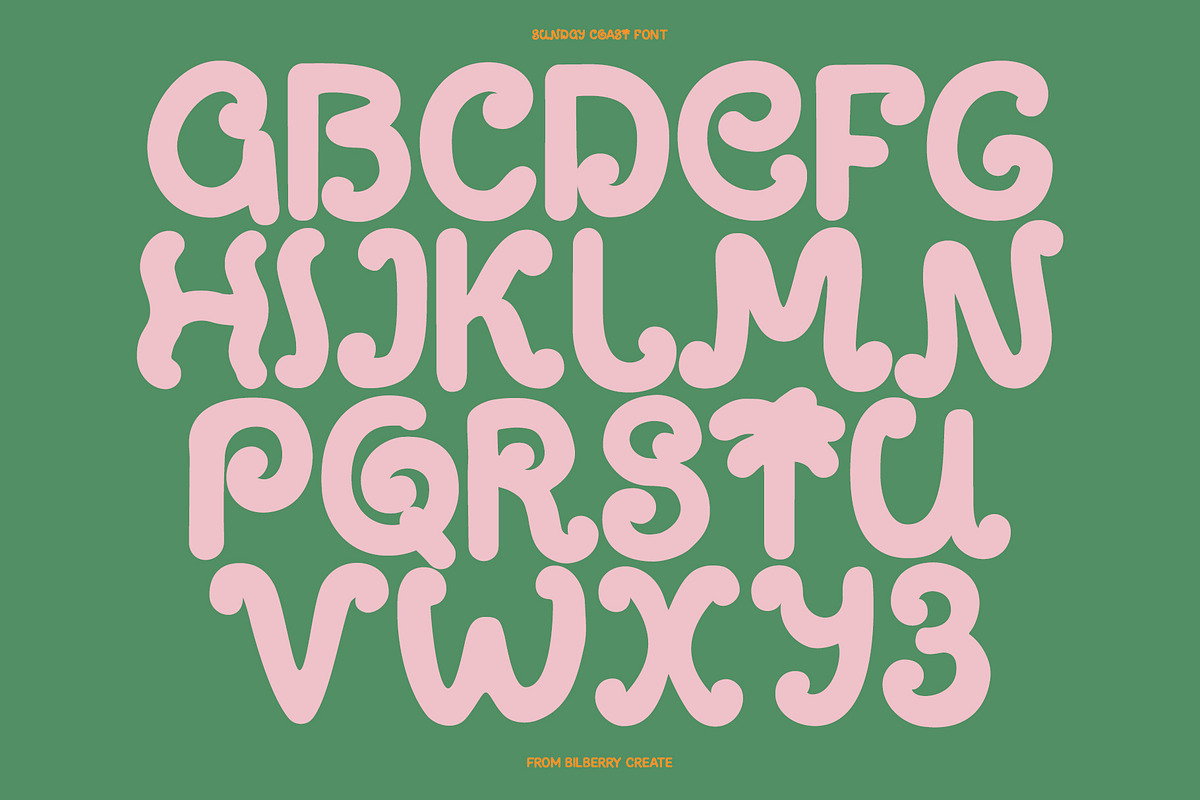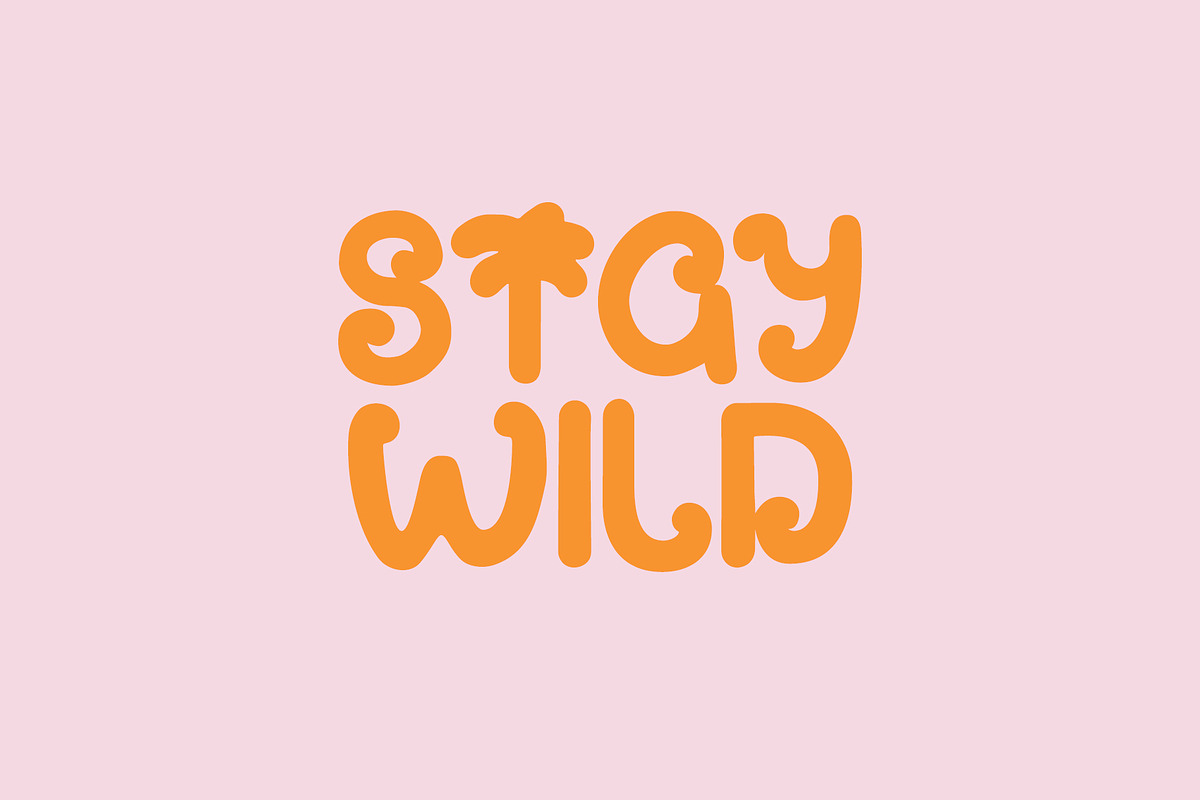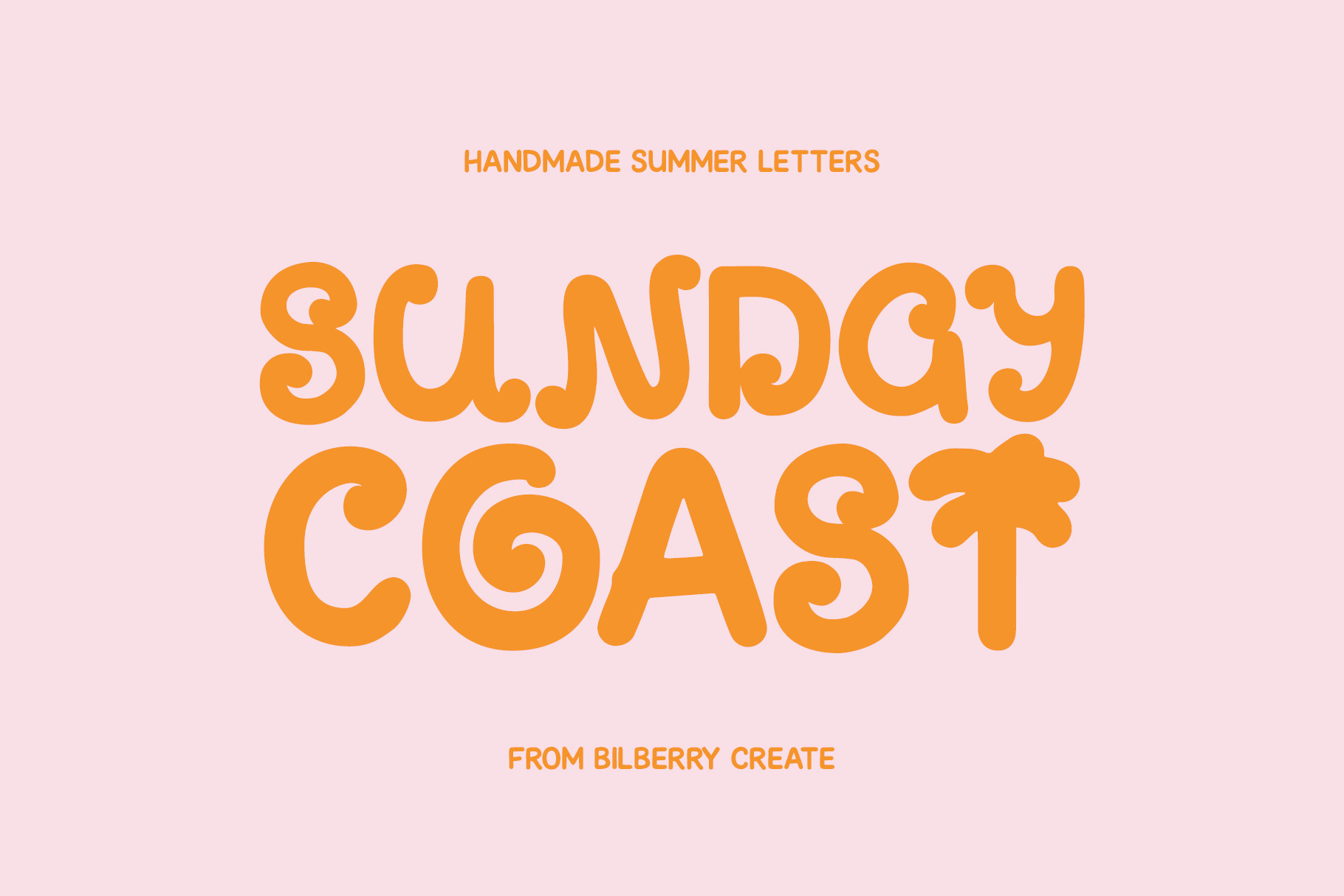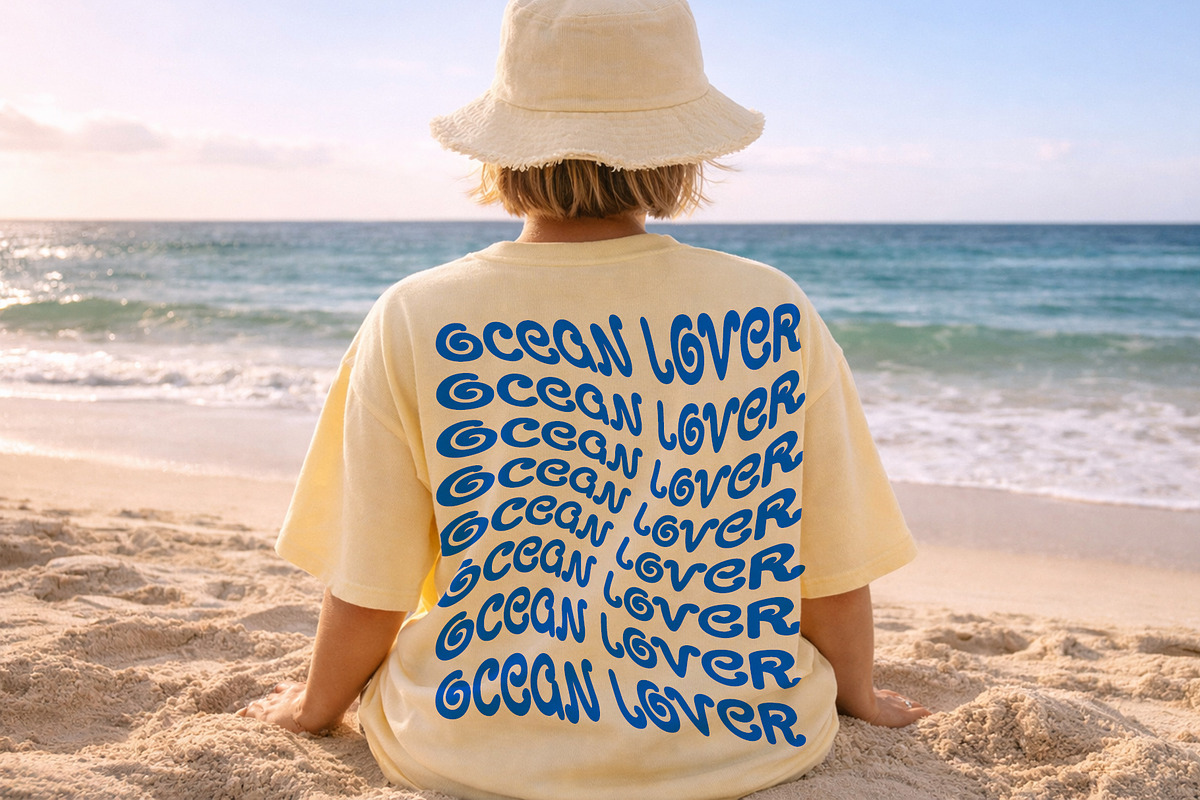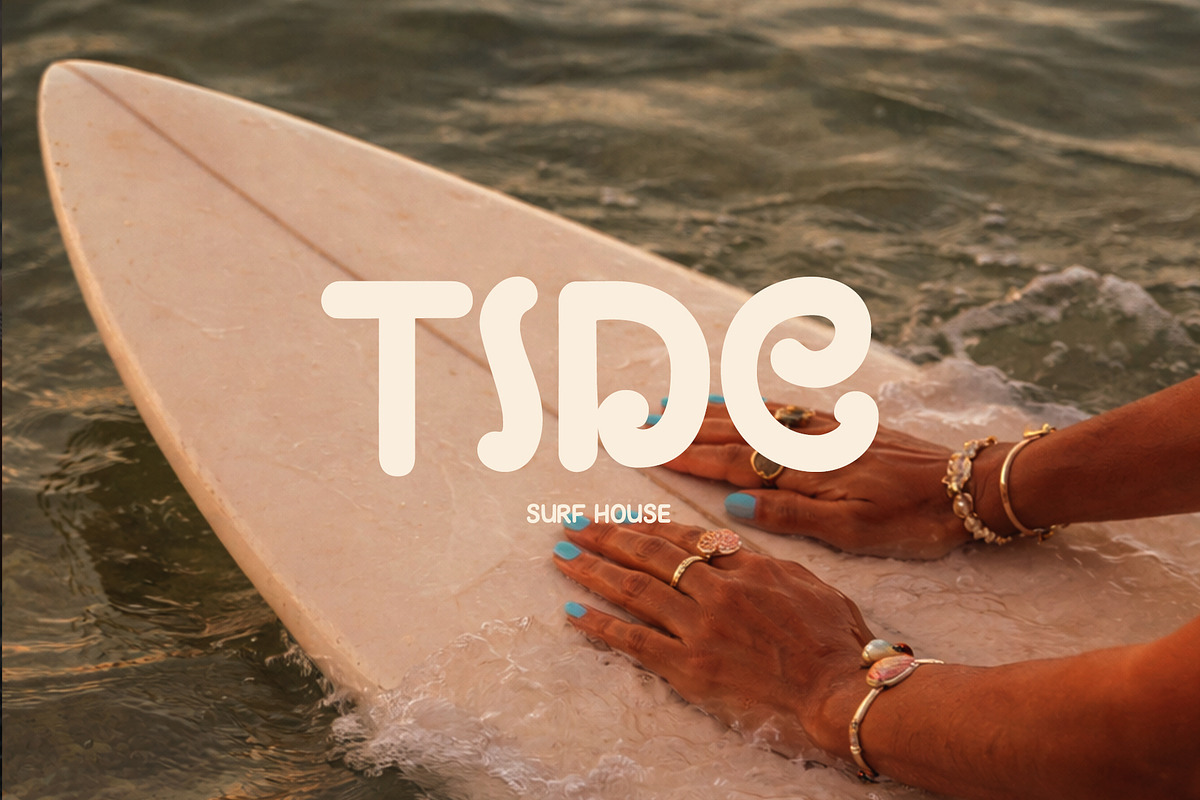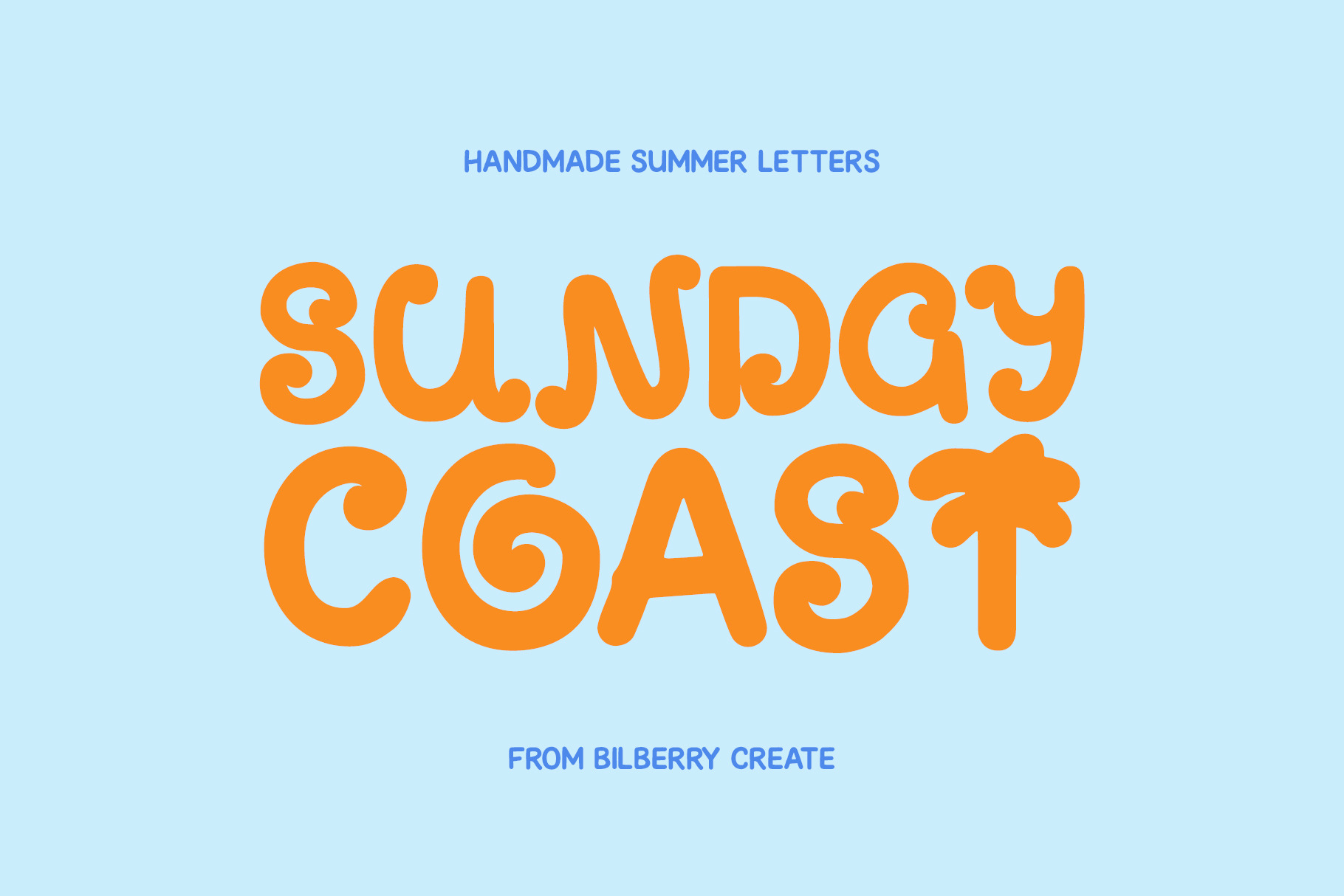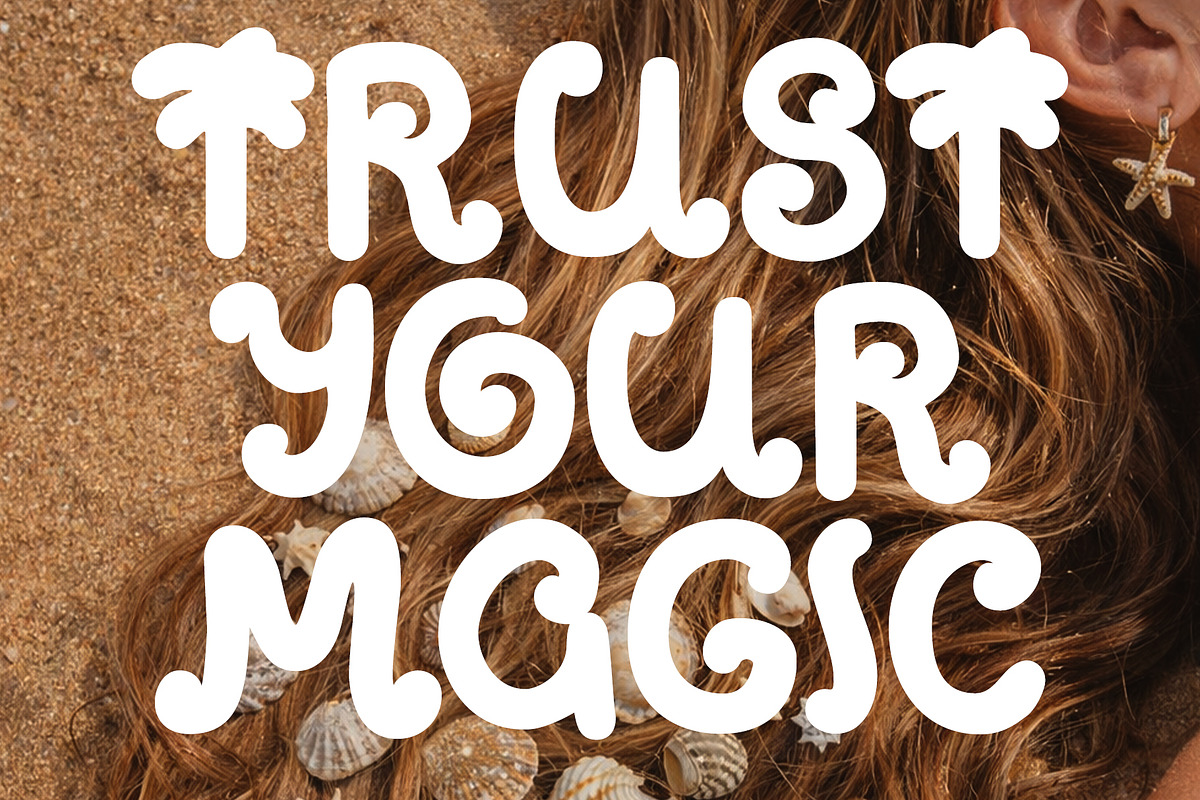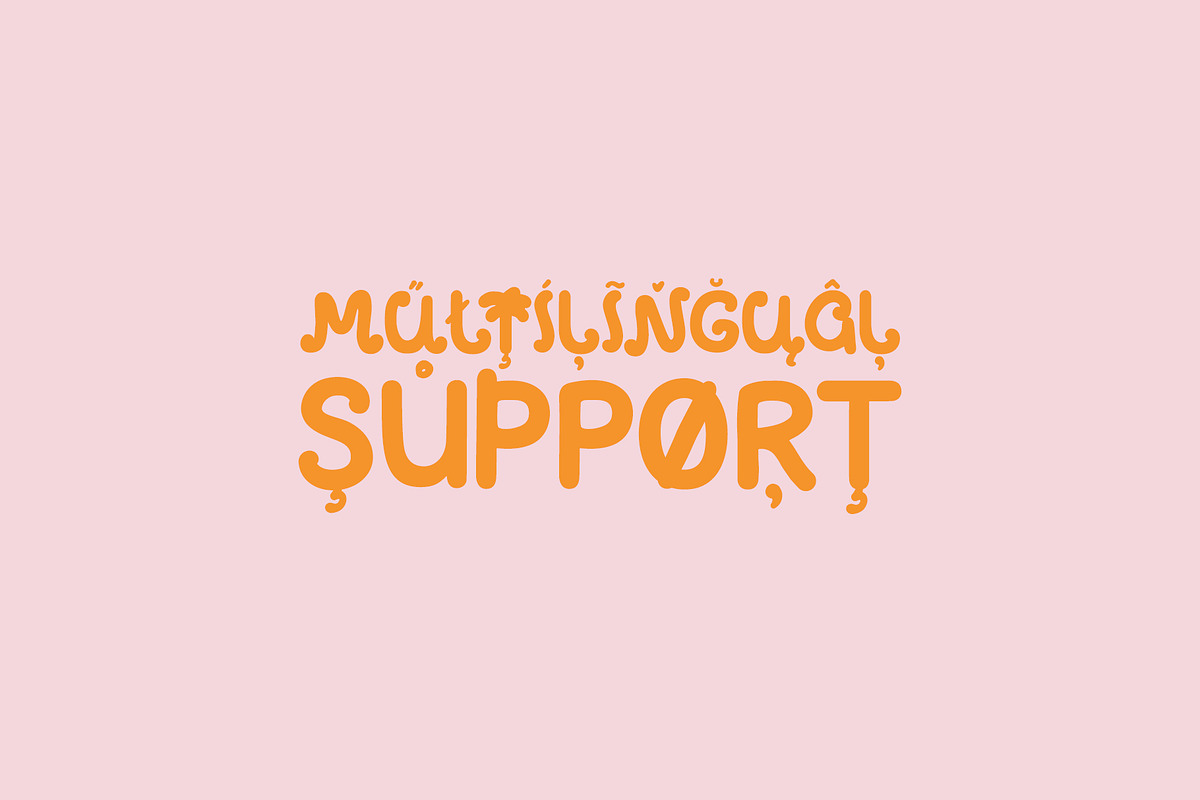
Sunday Coast Summer Font
Sunday Coast is a playful handmade display font with a warm summer mood and a charming retro touch. Its bold, rounded shapes and slightly imperfect handcrafted feel make every word look friendly, fun, and full of personality.
This font is perfect for branding, packaging, posters, social media graphics, summer quotes, kids products, invitations, stickers, t-shirts, and any design that needs a cheerful and sunny vibe. Sunday Coast instantly brings a relaxed, creative, and feel-good atmosphere to your work.
Designed with a hand-drawn spirit, Sunday Coast works beautifully for projects that want to feel cute, bold, and memorable without looking too formal or polished. It is especially great for feminine branding, playful visual identities, and seasonal designs.
Sunday Coast includes uppercase letters, numbers, and punctuation, making it easy to use for eye-catching headlines and creative layouts. Bring a little sunshine into your next project with Sunday Coast - a handmade font made for joyful designs.